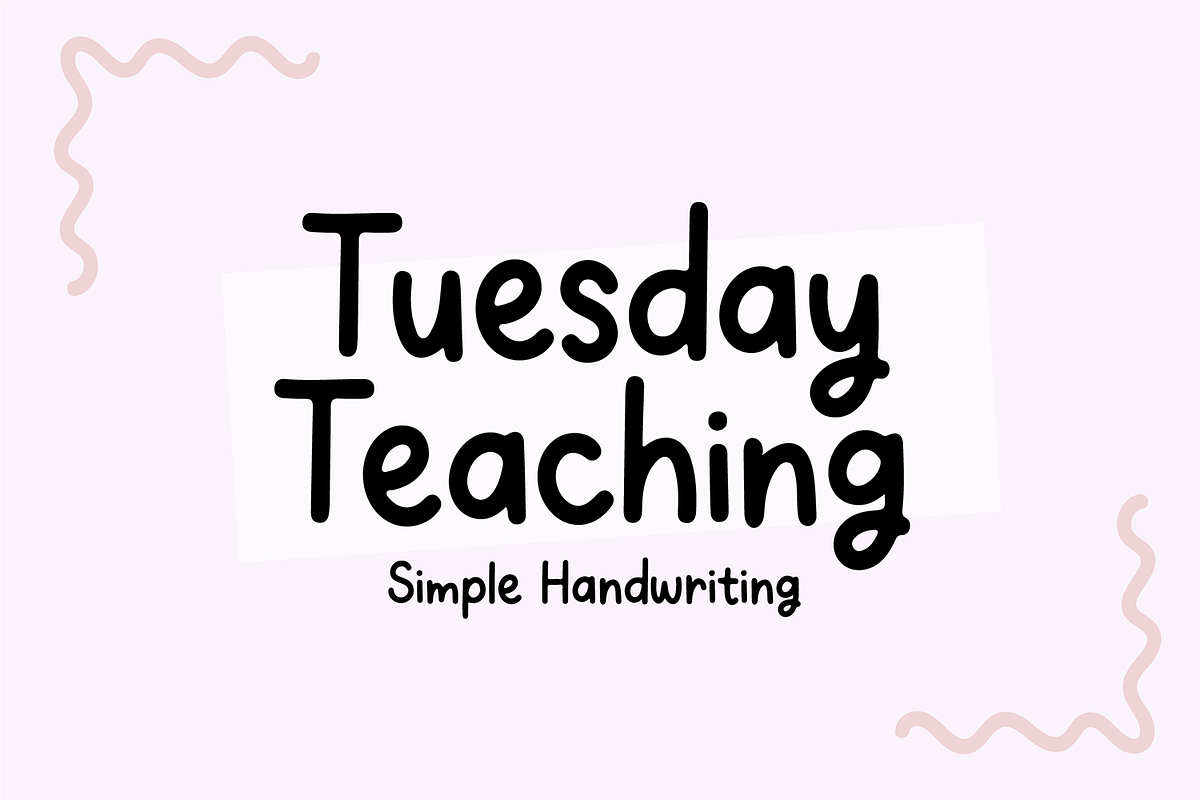
TUESDAY TEACHING Simple Handwriting Free Download
Tuesday Teaching Font Free Download is a clean and simple handwriting typeface created with educators and students in mind. Designed to mimic natural classroom writing, this font is perfect for worksheets, flashcards, early learning materials, bulletin boards, and educational presentations.
Its clear letterforms make reading and tracing easy for young learners, while still maintaining a friendly, hand-drawn feel. Whether you're a teacher crafting classroom resources or a parent designing educational activities at home, Tuesday Teaching helps learning feel fun and approachable. Tuesday Teaching Font Free Download lets you try it in personal projects before purchasing a commercial license.
Bring clarity and charm to your lessons with Tuesday Teaching — the handwriting font that makes education easier and more engaging.